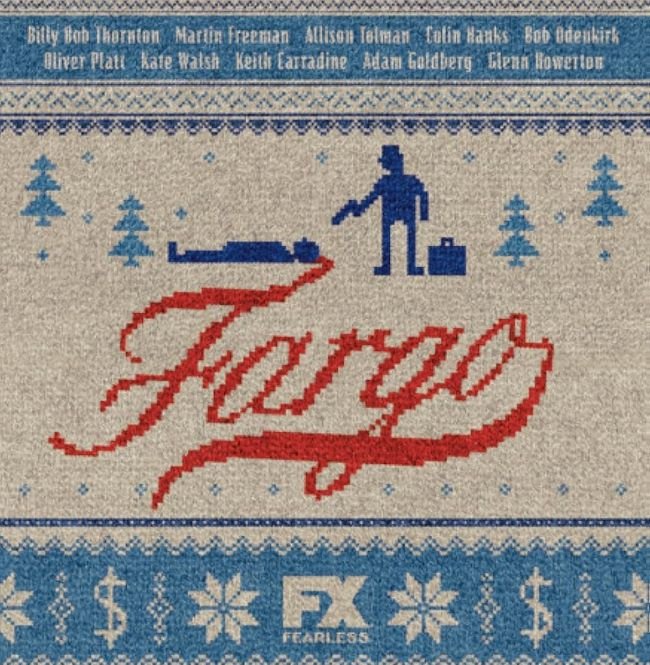
Fargo font — designed by Måns Grebäck — is the typography of a warm diner menu or a small-town newspaper: rounded, friendly, retro font that invites you in with the same cheerful decency that defines Minnesota nice, and then watches with calm interest as extremely violent things happen in the immediate vicinity. Noah Hawley’s FX anthology series, premiering in 2014 as a companion to the Coen Brothers’ 1996 film, needed typography that could hold the show’s fundamental tonal paradox: the surface is warm, familiar, and slightly comic; underneath is murder, moral collapse, and the specific darkness that flourishes in places where everyone is too polite to name what is actually happening.
The freely available Fargo Font channels this deceptively welcoming warmth.